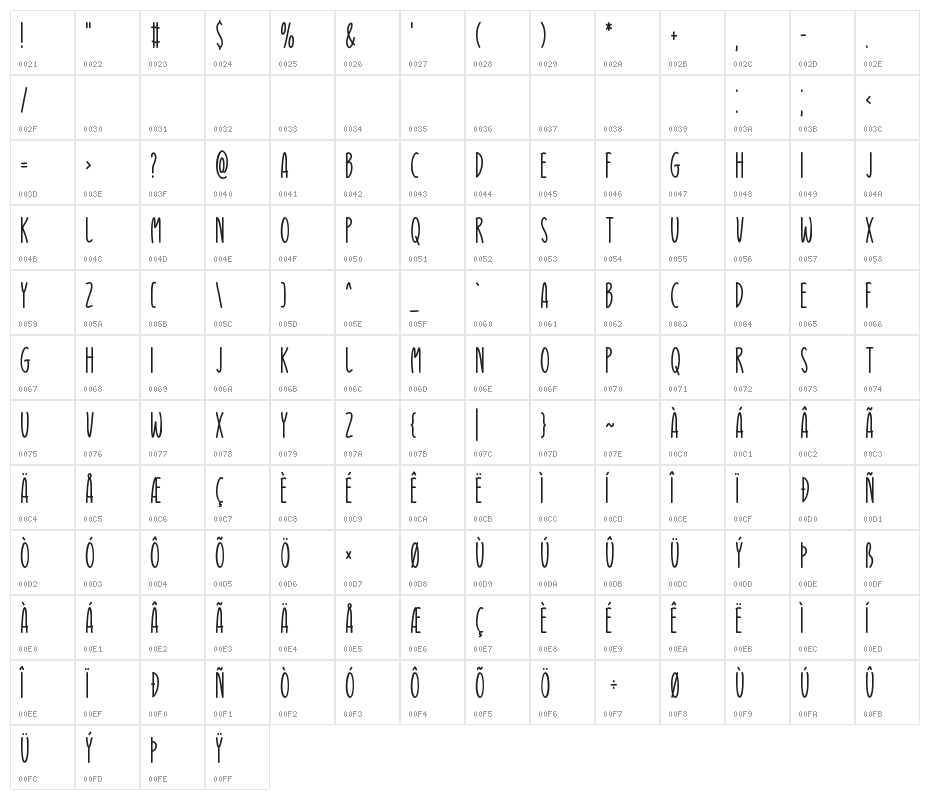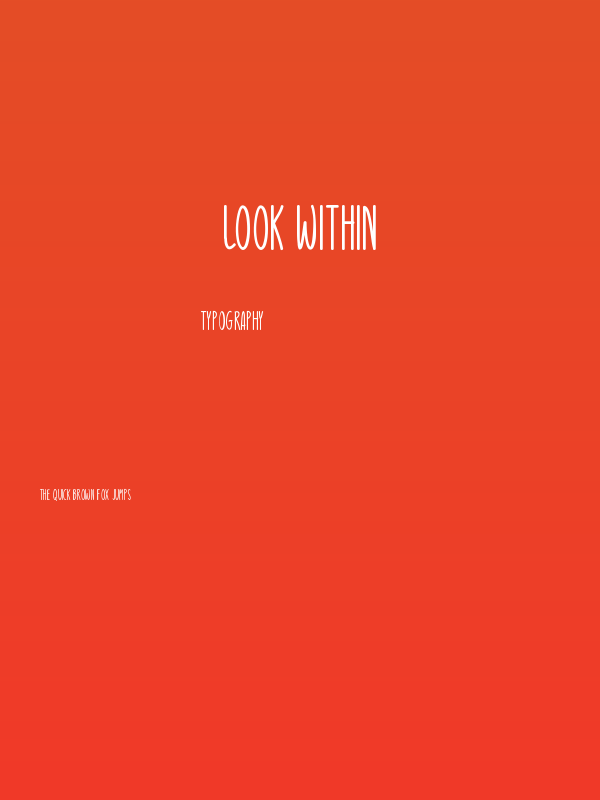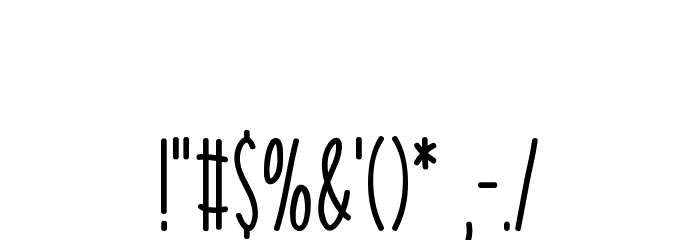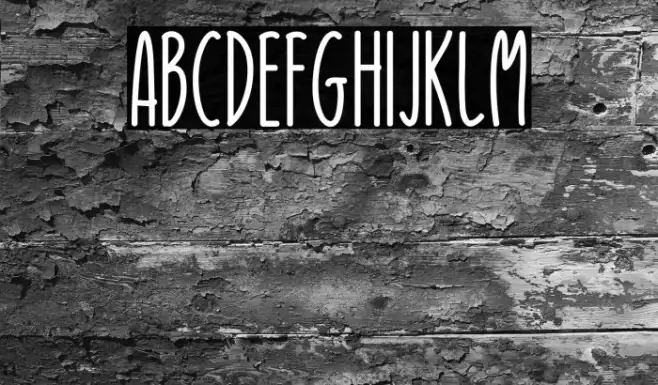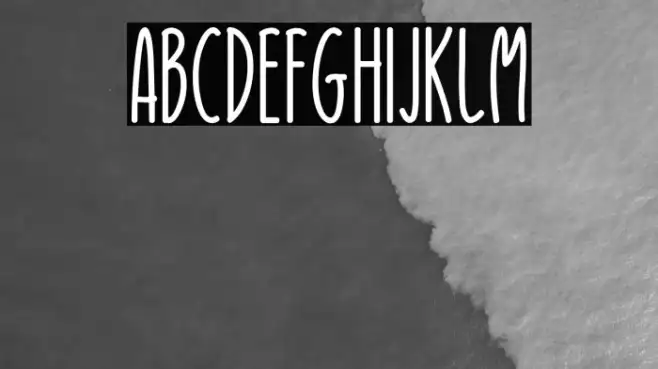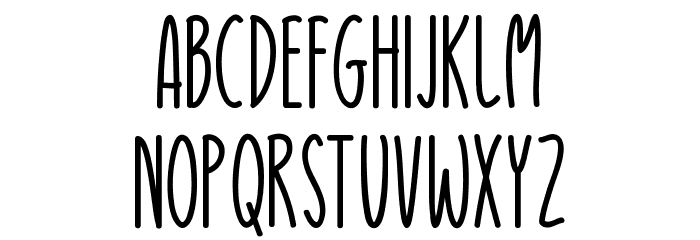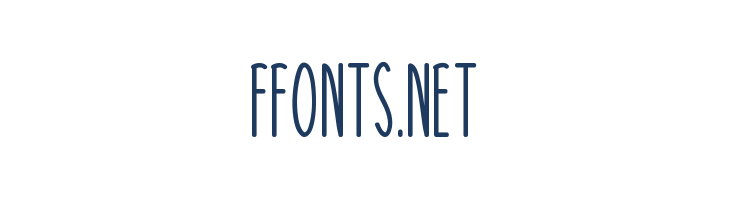
Look Within Font
Look Within Description
This font features a playful and casual handwritten style with tall, narrow letters. The characters have a consistent stroke width, giving it a clean and modern appearance. The uppercase and lowercase letters maintain a uniform height, contributing to its legibility. The font includes a full set of uppercase and lowercase letters, numbers, and a variety of special characters, making it versatile for different uses. Its informal and friendly look makes it suitable for creative projects, invitations, and personal branding.
| Overall Style | Casual, Modern |
| Proposed Projects | Ideal for invitations, greeting cards, personal branding, and creative projects. |